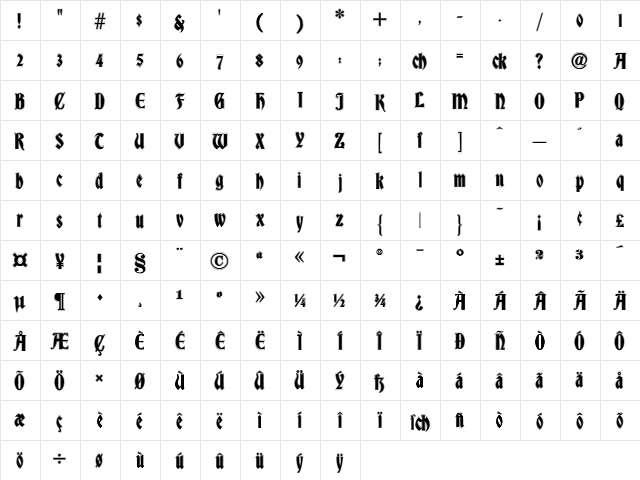
DS Bradley Contour Regular
| Designer | Typographer Mediengestaltung |
Design Context for DS Bradley Contour Typeface
DS Bradley Contour is a composed and adaptable typeface that performs quietly and consistently across a wide range of design contexts.
Pro Tip: Use DS Bradley Contour in both headline and body roles to test its range before committing to a single application.